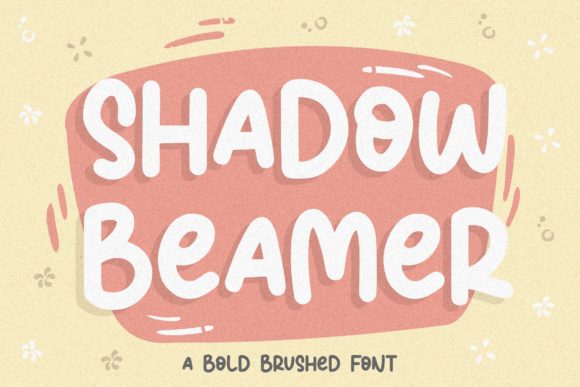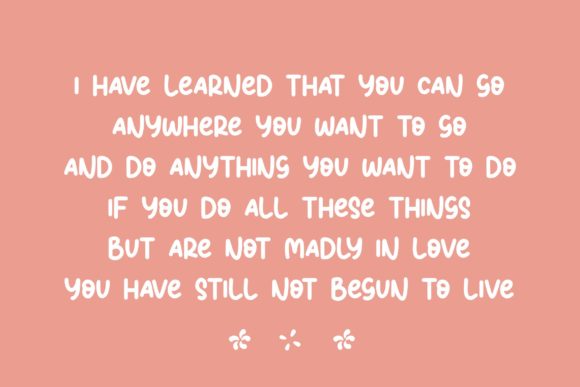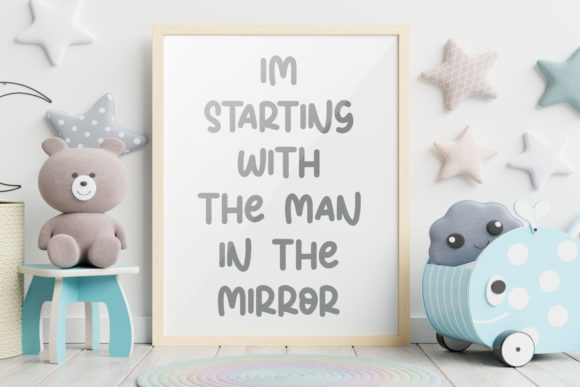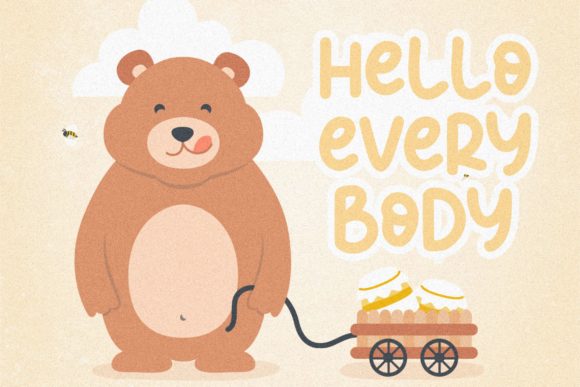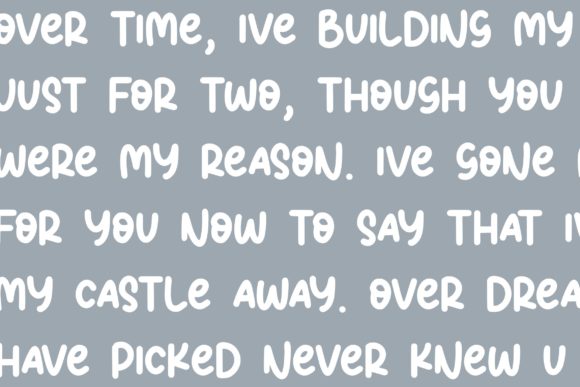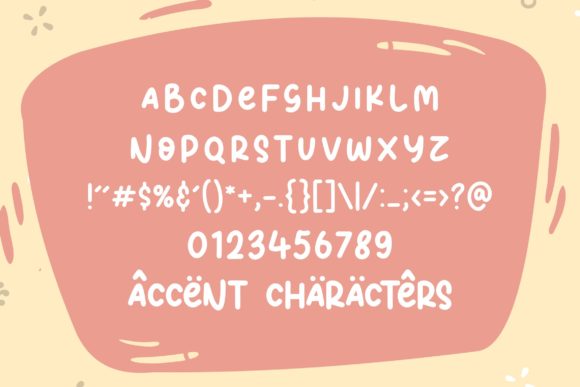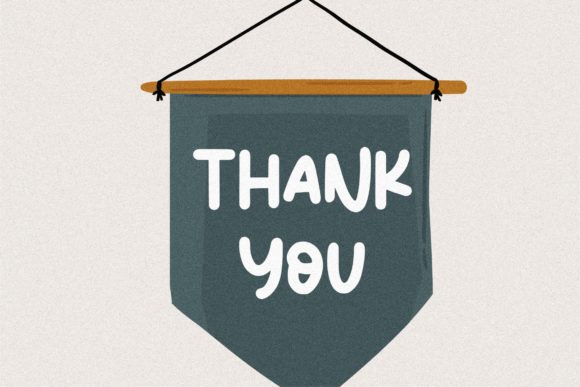
Shadow Beamer Font
About Shadow Beamer Font
Shadow Beamer is a cute and chunky lettered handwritten font. Add this font to your favorite creative ideas and notice how it makes them come alive!